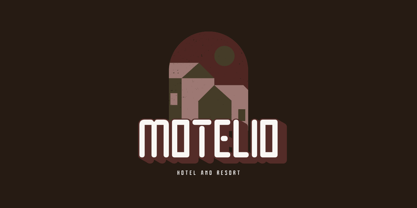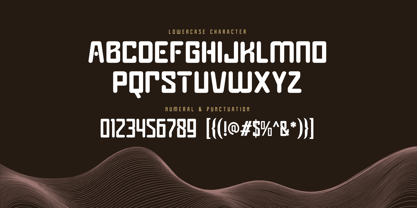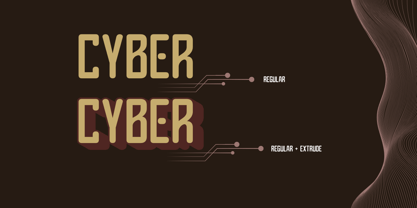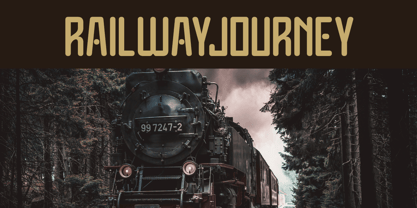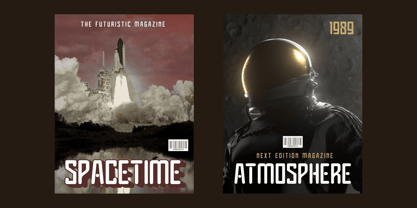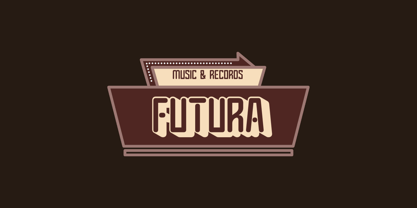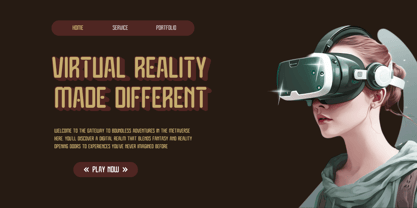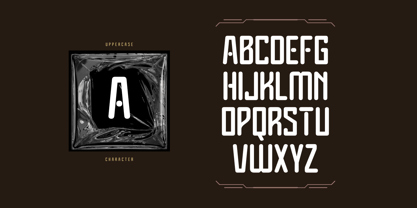
Cyber Techno
von Nirmana Visual
Die Schriftfamilie Cyber Techno wurde von Sigit Dwipa entworfen und von Nirmana Visual veröffentlicht. Cyber Techno enthält 2 Stile und Familienpaketoptionen. Mehr über diese Familie
Cyber is a bold techno-style font with a futuristic extrude design, perfect for creating standout visuals. Inspired by modern, sci-fi, and space aesthetics, Cyber brings a sleek and high-tech vibe to any project. Ideal for logos, posters, movie titles, and digital designs, this font adds depth and energy to your message. Its sharp lines and dimensional form make it a top choice for bold, cutting-edge branding and visuals.
Designer: Sigit Dwipa
Foundry: Nirmana Visual